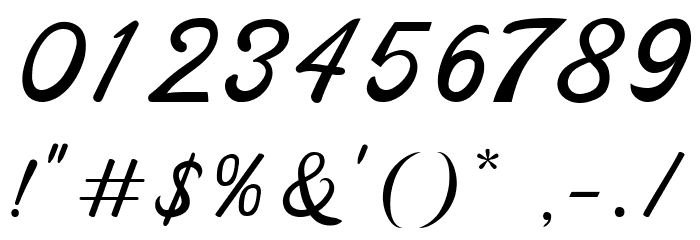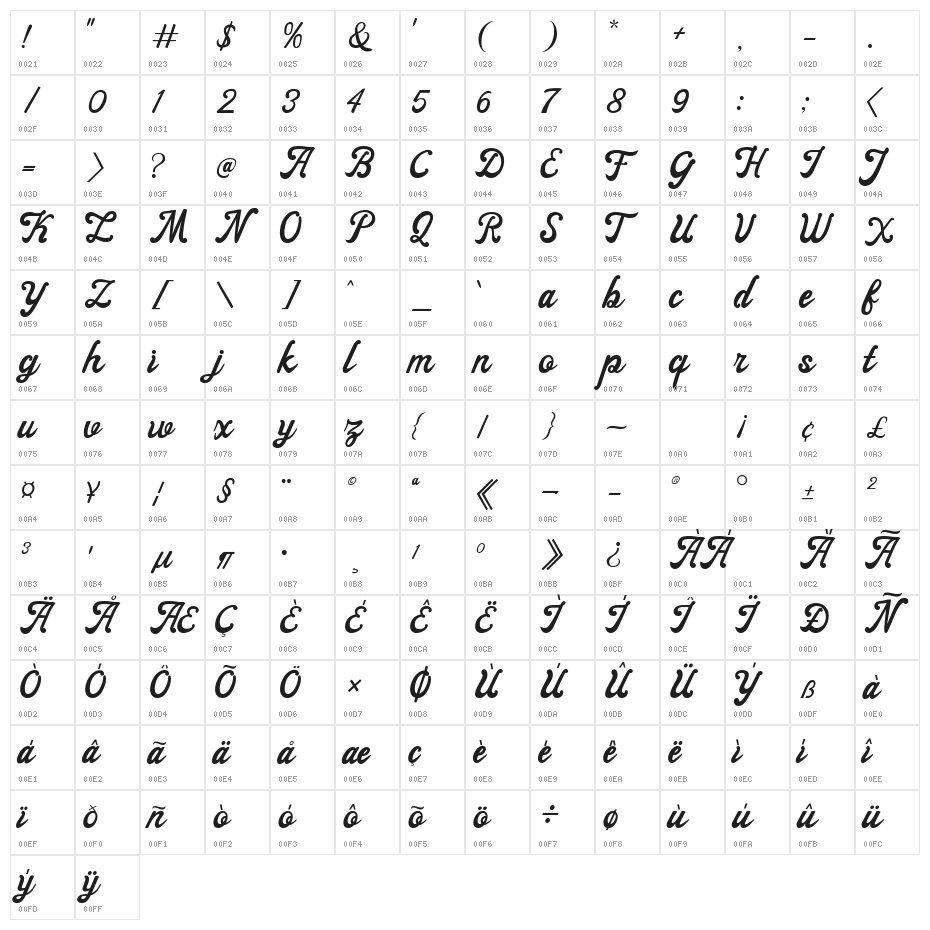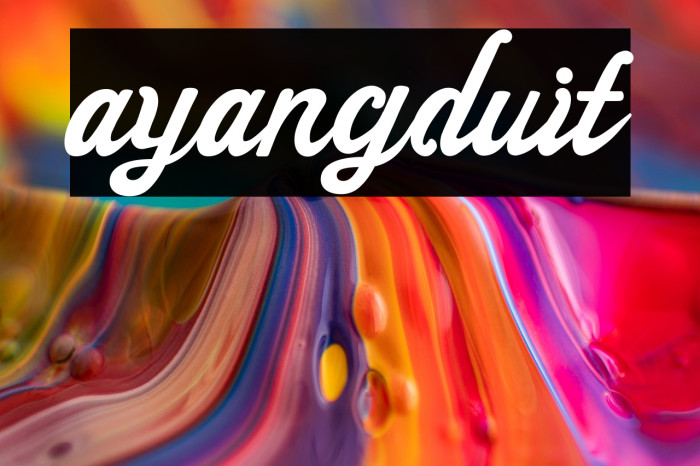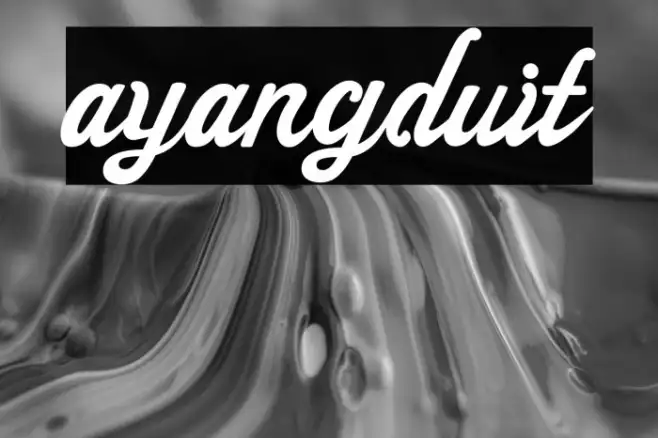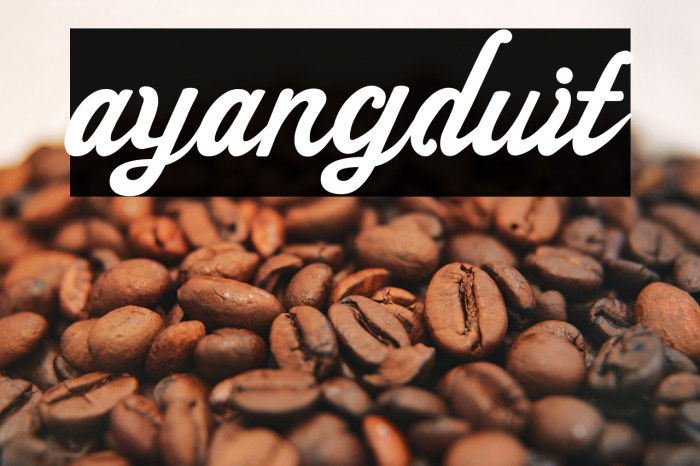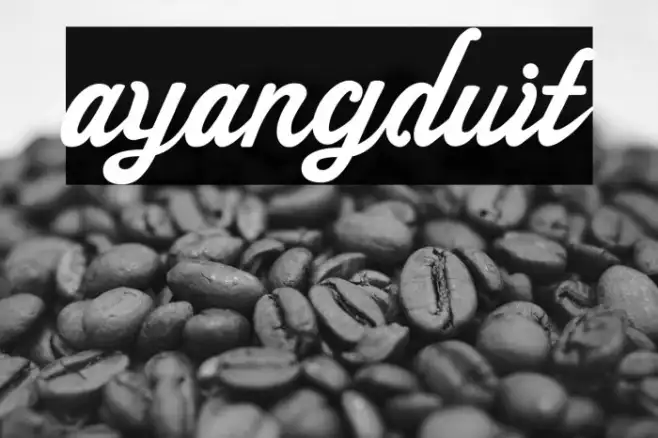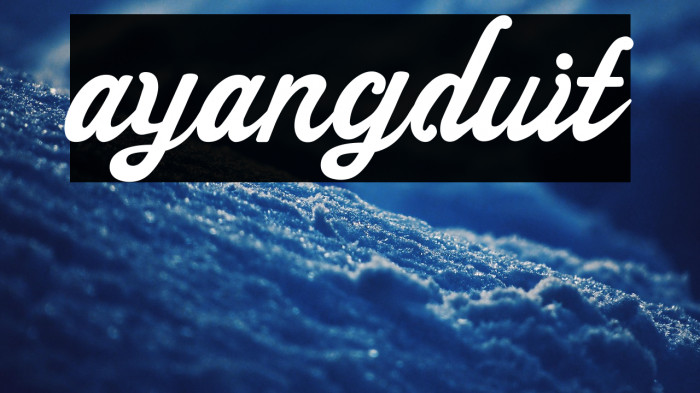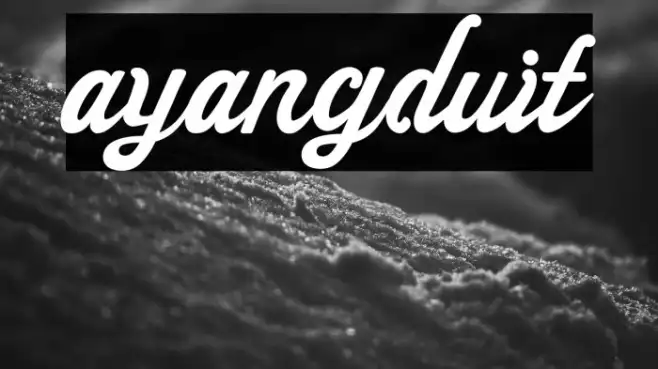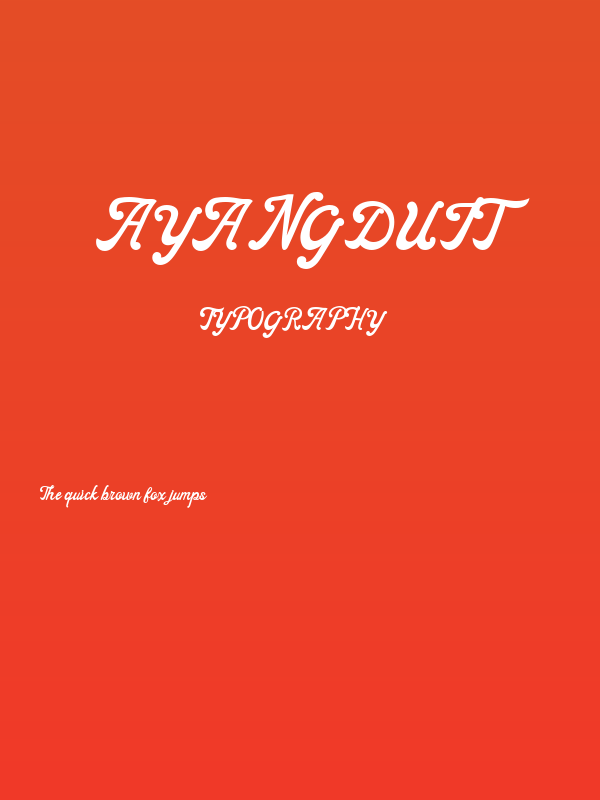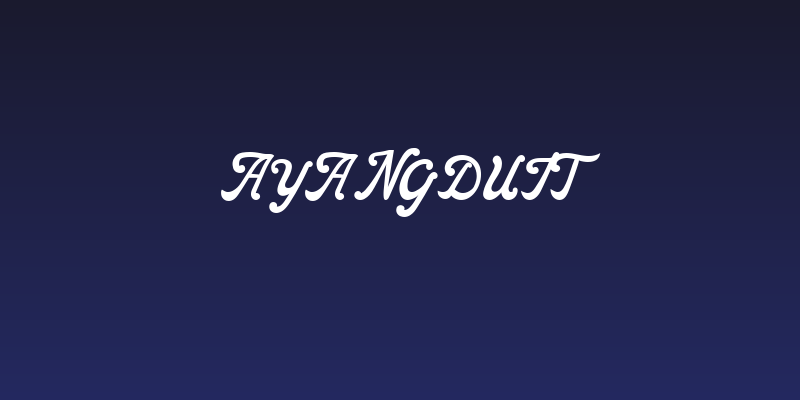
ayangduit Font
ayangduit Description
This font features a classic script style with elegant, flowing curves and a sense of movement. Each character is carefully crafted with smooth, connected strokes that give it a handwritten appearance. The uppercase letters are bold and prominent, while the lowercase letters maintain a consistent flow, enhancing readability. The numerals and special characters are designed to complement the alphabet, maintaining the same stylistic features. This font exudes sophistication and is ideal for projects that require a touch of elegance and formality.
| Use Case | Logos, Invitations, Headlines |
| Proposed Projects | Ideal for wedding invitations, elegant branding, formal event programs, and upscale packaging design. |